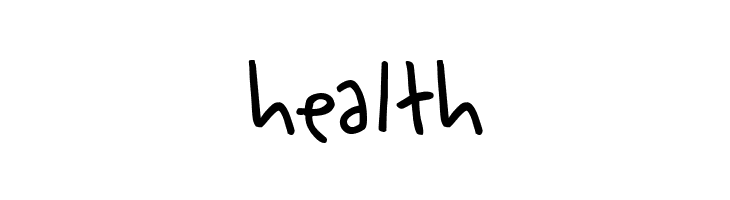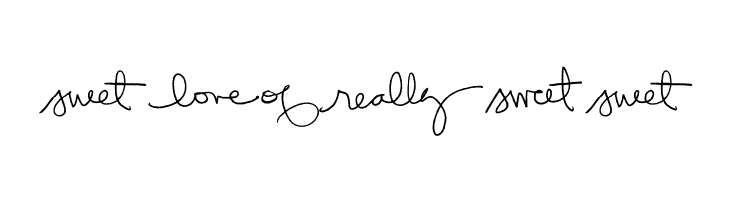
A playful, bold handwritten font with a whimsical and casual style.
A playful, handwritten font with bold, rounded characters.
A playful, handwritten-style italic font with rounded, smooth strokes.
A playful, handwritten-style font with rounded, slanted characters.
A playful, handwritten font with a casual and whimsical style.
A playful and whimsical font with artistic curves and straight lines.
A playful, hand-drawn font with tall, narrow characters and a whimsical style.
A playful and bold font with a whimsical, energetic style.
A playful, handwritten script font with a casual and friendly style.
A playful, handwritten font with a slight slant and smooth curves.
A bold, expressive handwritten font with dynamic strokes.
A playful, casual handwritten font with rounded, smooth letterforms.
A playful, casual handwritten font with smooth, organic strokes.
A sleek, elongated font with a modern and elegant design.
A playful, handwritten font with dynamic strokes and a casual appearance.
A playful handwritten font with fluid, energetic strokes.
A lively, expressive handwritten font with fluid, sweeping strokes.
A bold, hand-drawn font with an energetic and artistic style.
A playful, hand-drawn font with rounded edges and a whimsical style.